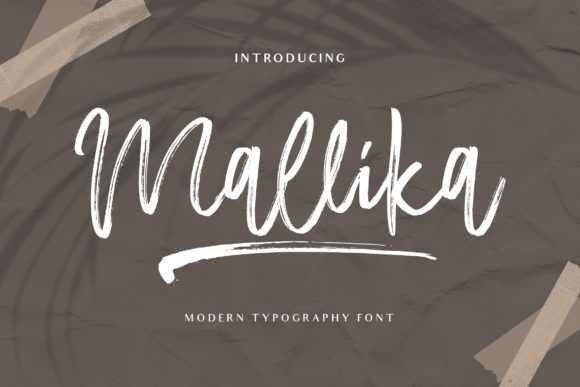
Journey into a World of Whimsical Charm with Mallika Font
Welcome to the realm of Mallika Font, where captivating letterforms dance harmoniously to create a symphony of visual delight. A creation of the renowned fontherapy, Mallika is a script font that takes inspiration from the innocence and joy of childhood. Each character is meticulously crafted with a dry brush technique, giving it a natural and organic feel that evokes the warmth of a handwritten note.
Discover the Magic of Mallika: A Font Designed to Enchant
Mallika Font is not just a collection of letters; it's an invitation into a world of imagination and wonder. Its playful strokes and enchanting curves bring a touch of whimsy to any project, making it the perfect choice for children's books, greeting cards, posters, and any design that seeks to capture the hearts of young and old alike.
Unleash Your Creativity: Endless Possibilities with Mallika
With Mallika Font, your creativity knows no bounds. Whether you're a seasoned designer or just starting, this font's versatility and charm will elevate your projects to new heights. Create enchanting invitations that spark joy, design whimsical logos that leave a lasting impression, or craft captivating social media posts that engage your audience. The possibilities are endless.
Embrace the Joy of Mallika: A Font That Touches Hearts
Mallika Font is more than just a font; it's an experience that transports you to a realm of pure imagination. Its ability to evoke emotions and create connections makes it the perfect choice for projects that aim to touch hearts and make a lasting impact. Share your stories, express your love, and inspire your readers with the magic of Mallika.